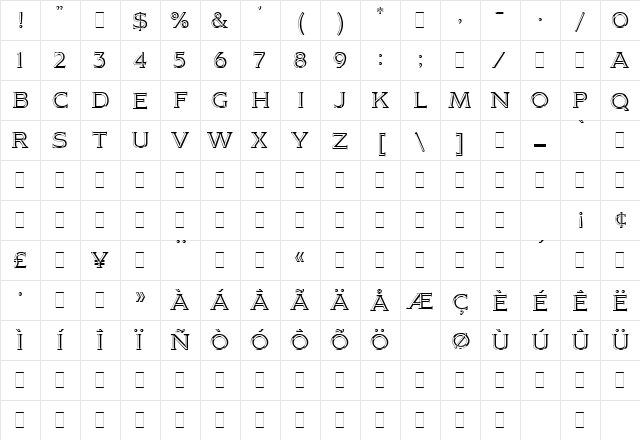
Citation LET Plain
Design Context for Citation LET Typeface
Citation LET takes a measured approach to typography — its balanced proportions and neutral character make it a reliable workhorse for both digital and print work.